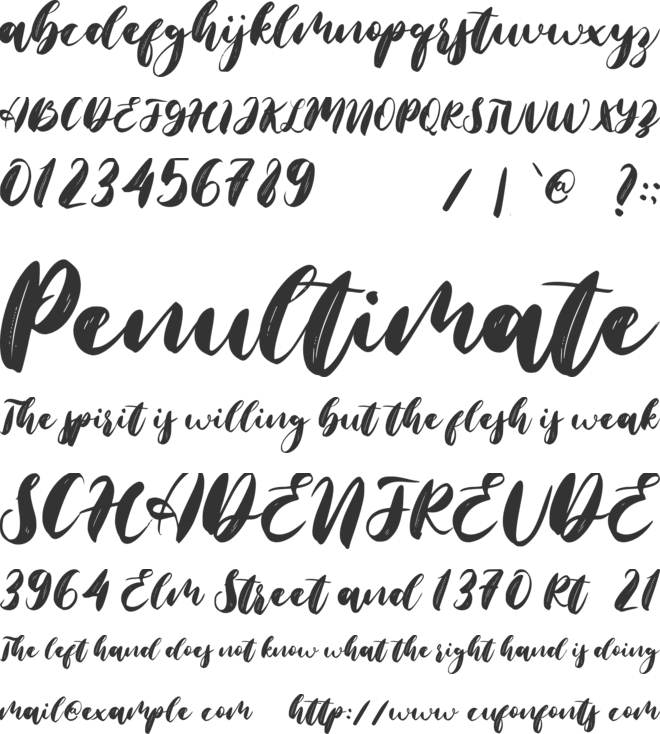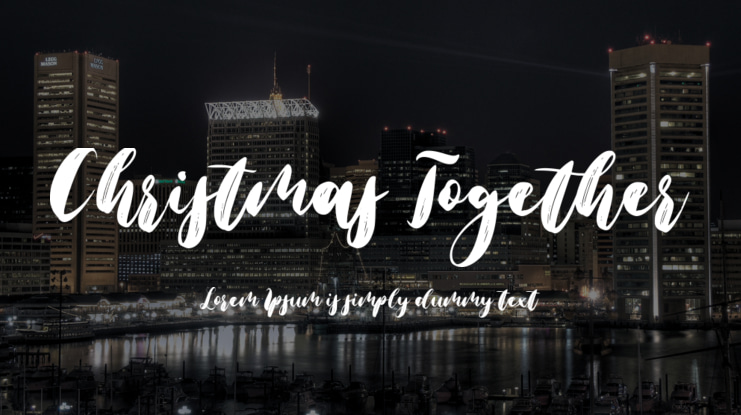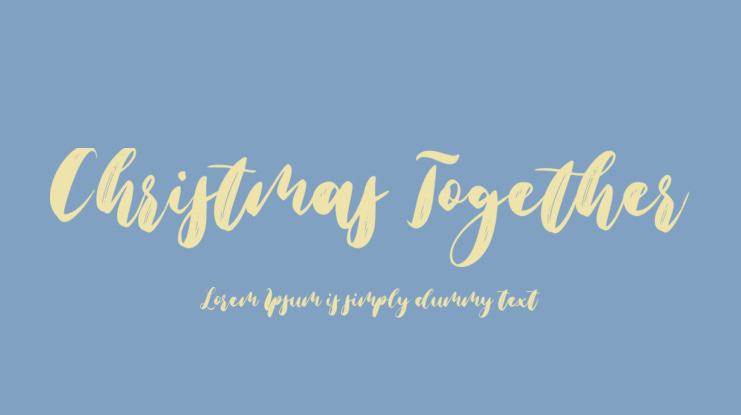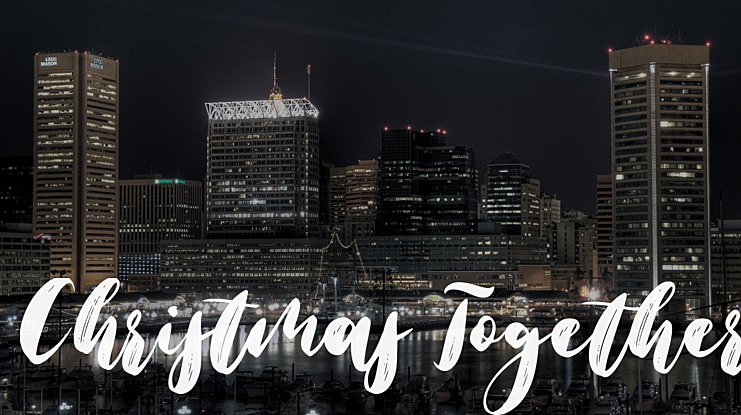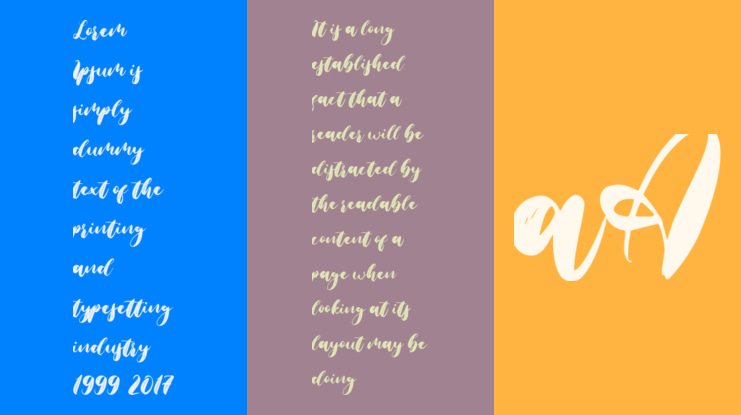
Christmas Together Font
Christmas Together is a dazzling and timeless handwritten font. It is the best choice for your Christmas season. Among them to create logos, branding, and attractive quotes. This font is PUA encoded which means you can access all the glyphs and sweeps easily!